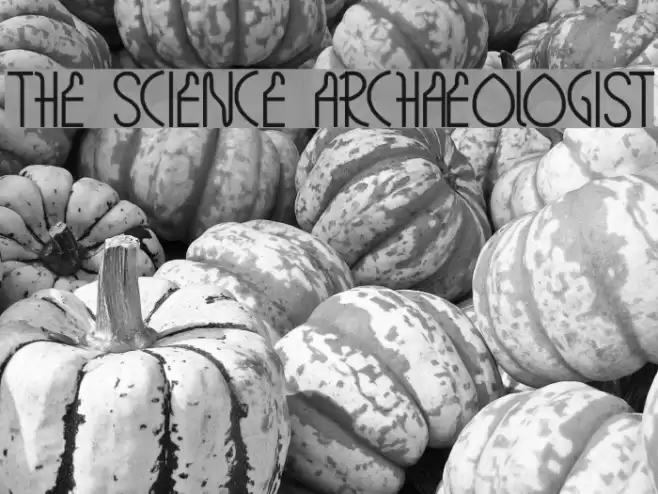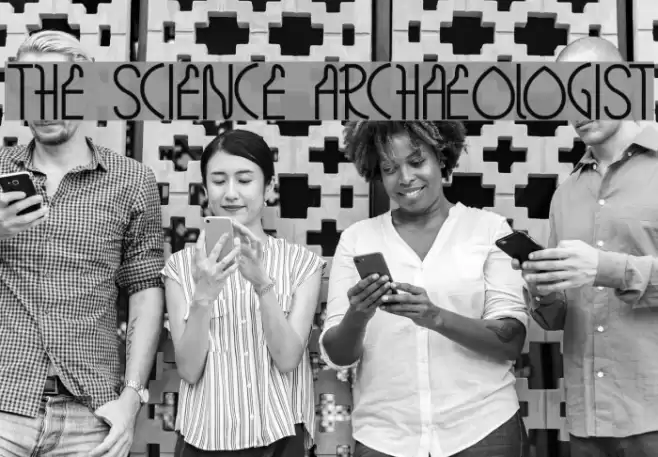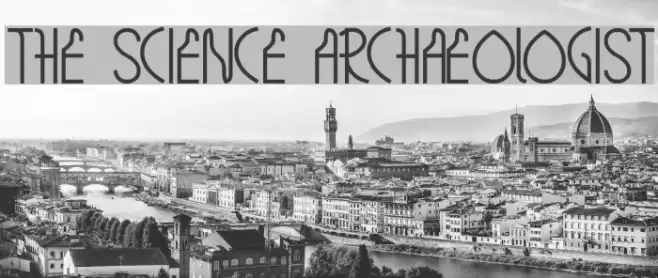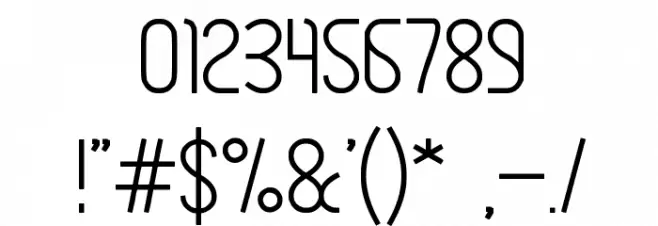
THE SCIENCE ARCHAEOLOGIST Font
THE SCIENCE ARCHAEOLOGIST Description
This font features a unique, modern design with a geometric and slightly futuristic aesthetic. The uppercase letters are characterized by their angular and elongated forms, creating a sense of movement and dynamism. The lowercase letters maintain a similar style but with a softer, more rounded approach, providing a nice contrast to the sharper uppercase. The numerals are consistent with the overall design, offering a clean and cohesive look. Special characters are well-integrated, maintaining the font's distinctive style. This typeface is both eye-catching and versatile, making it suitable for a variety of creative projects.
A modern, geometric font with a futuristic and dynamic style from Uncategorized fonts.
- Proposed Projects: Ideal for branding, posters, album covers, and digital media projects that require a contemporary and edgy look.